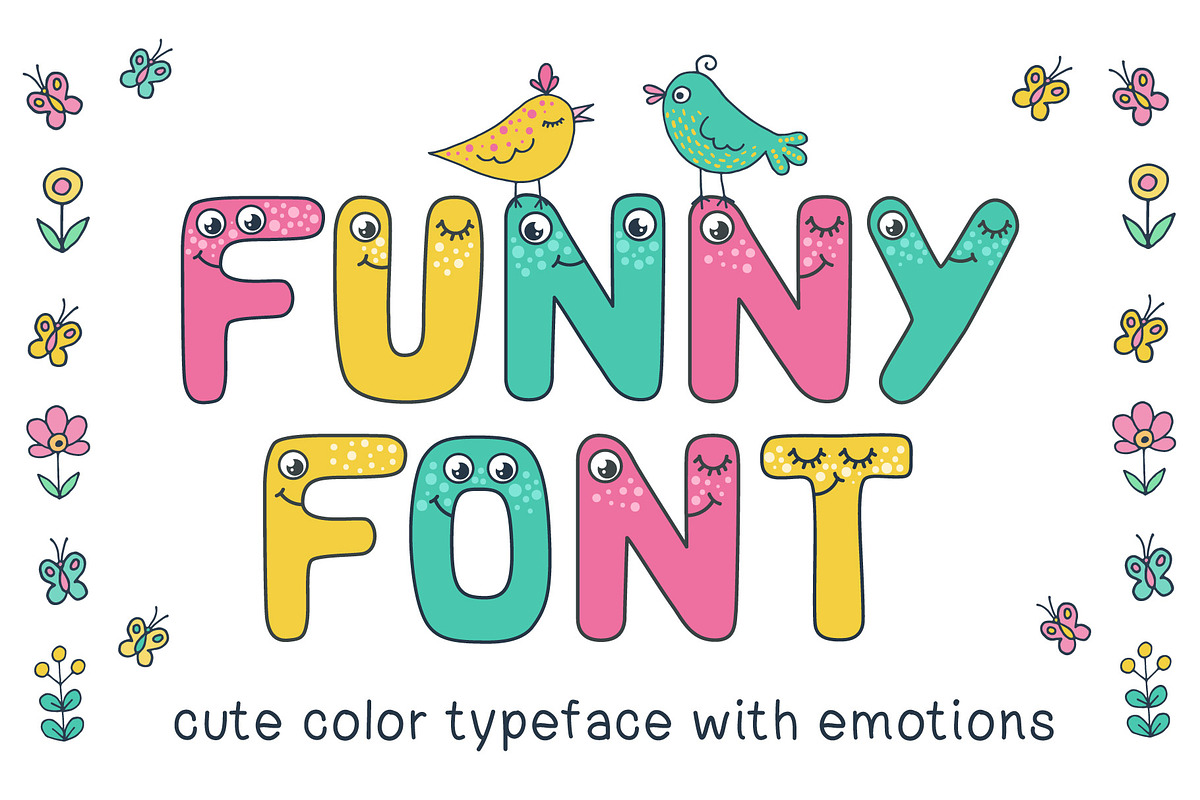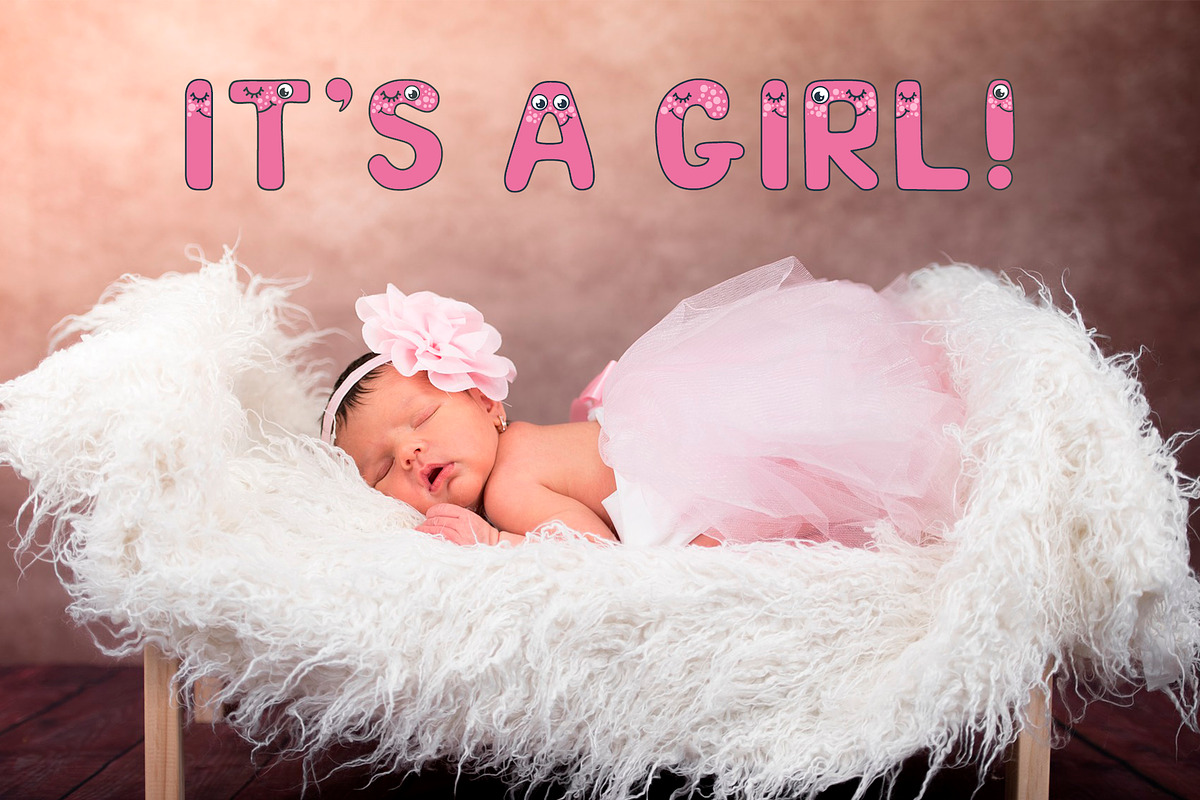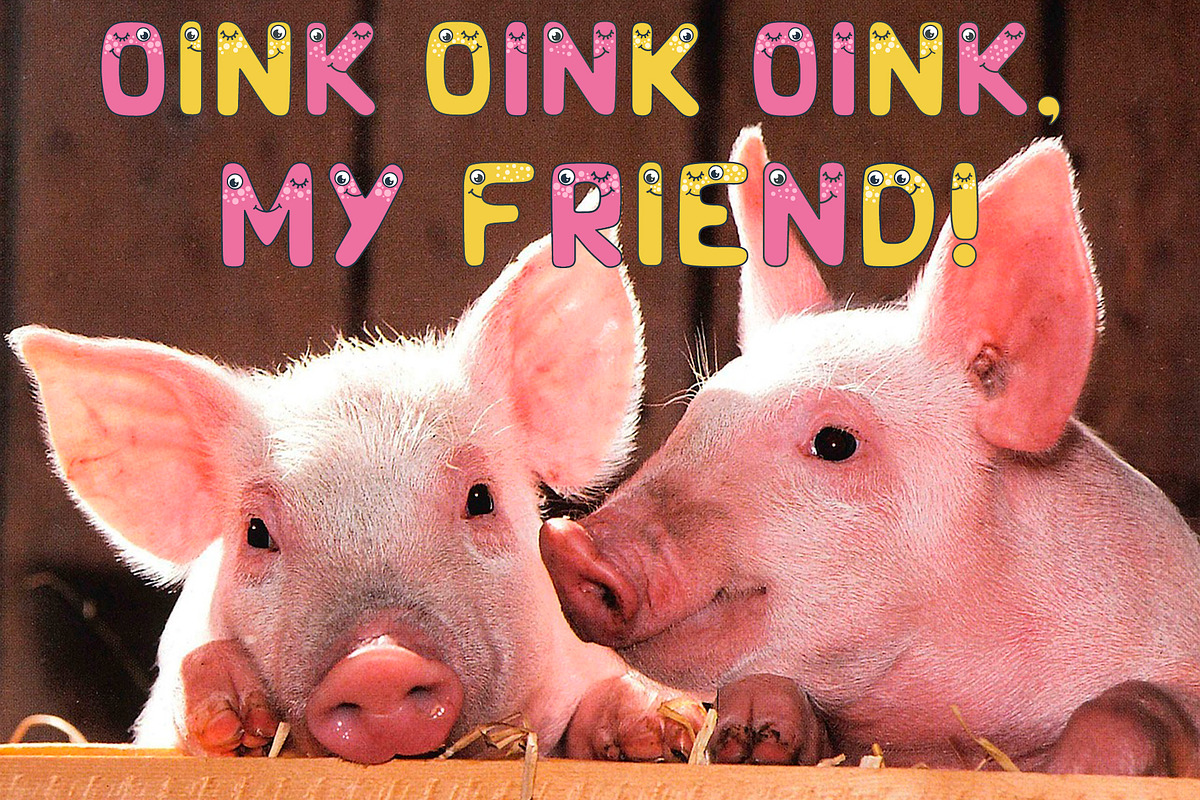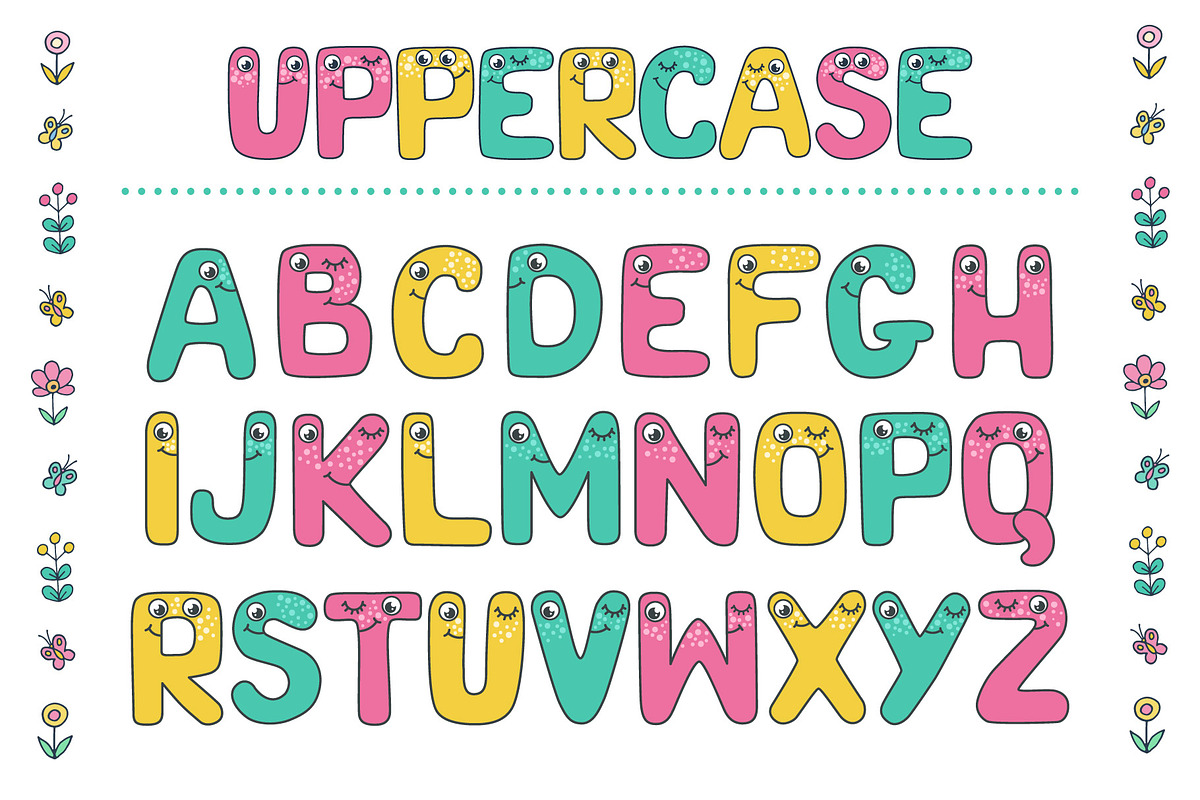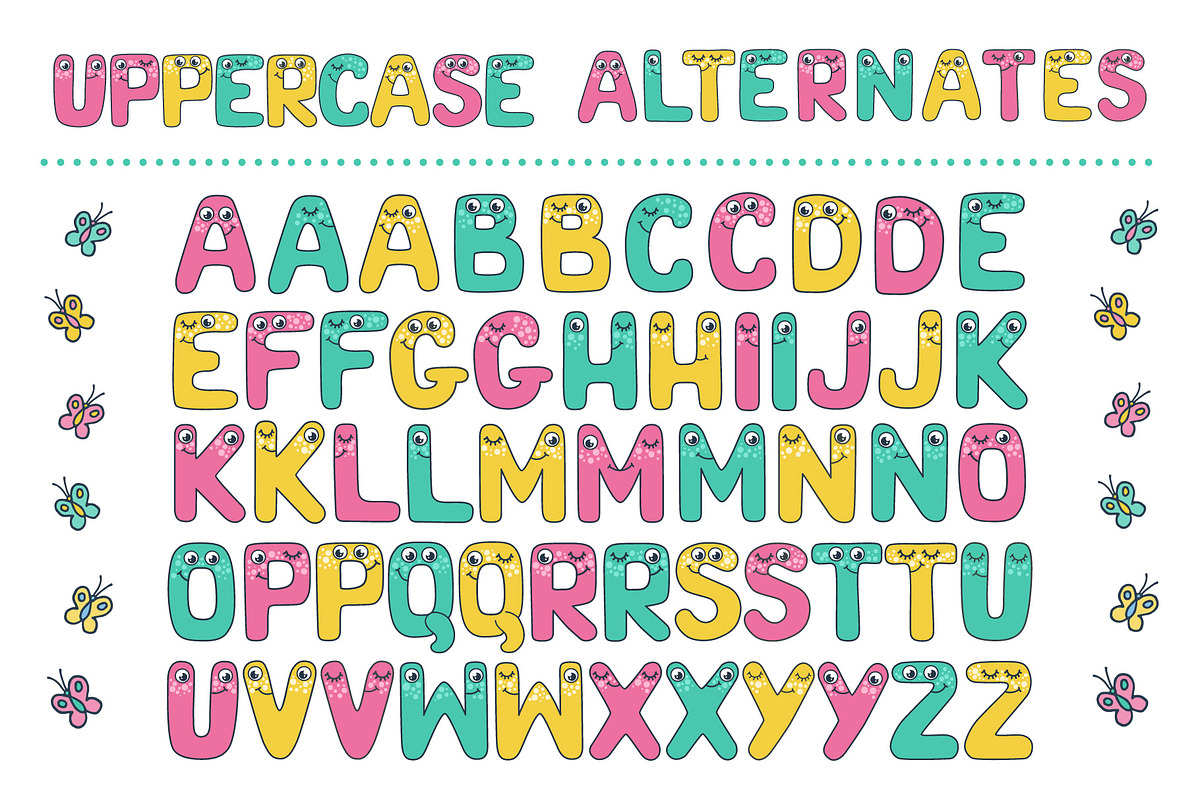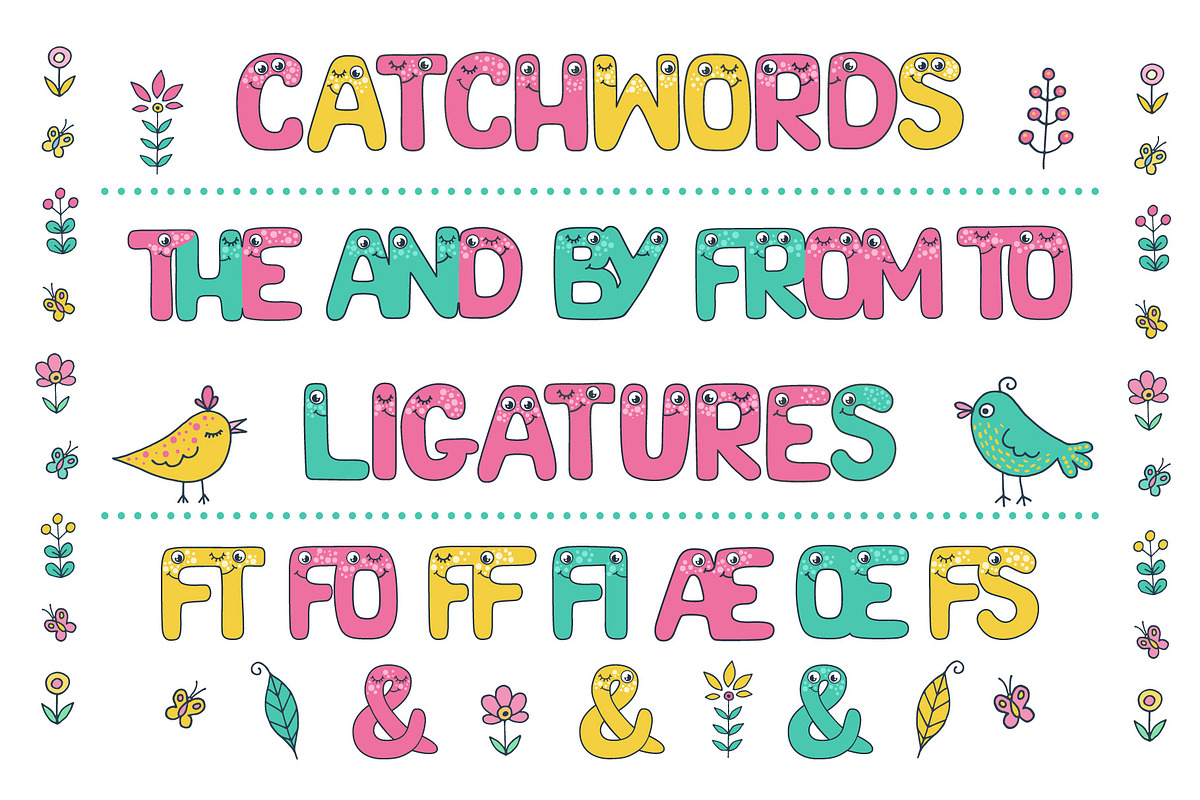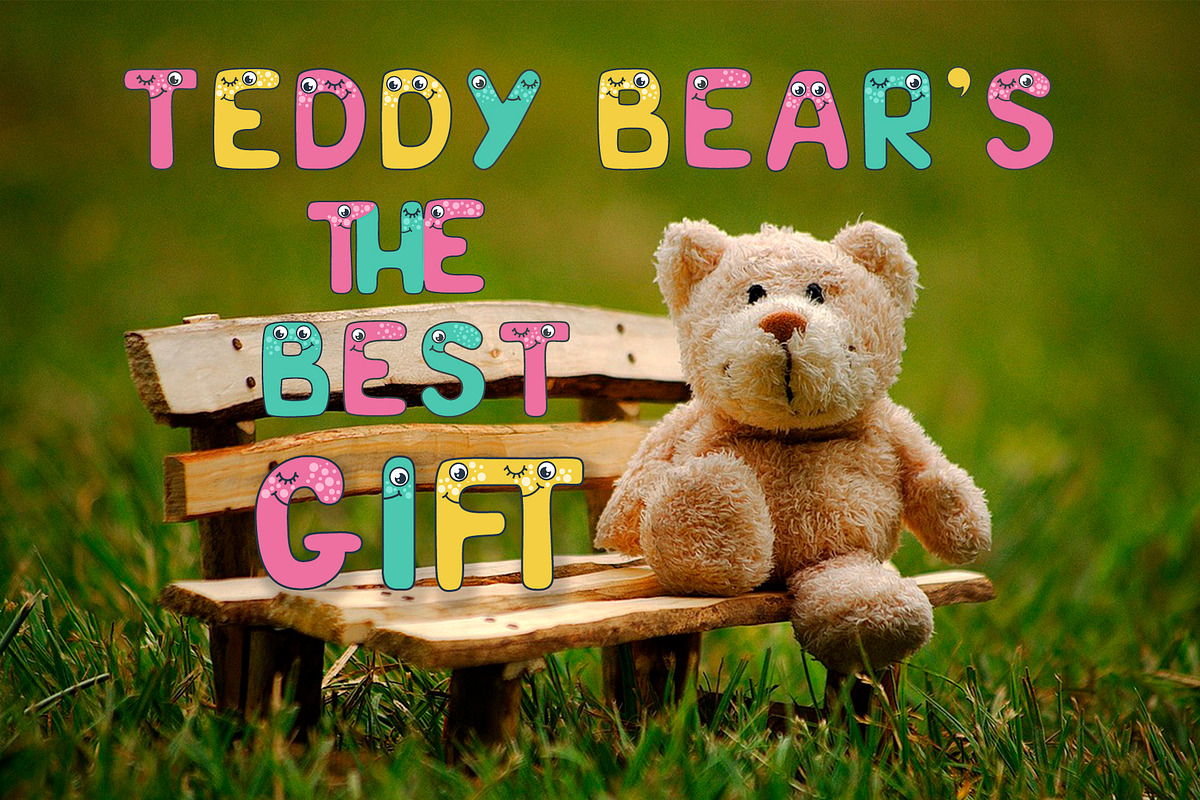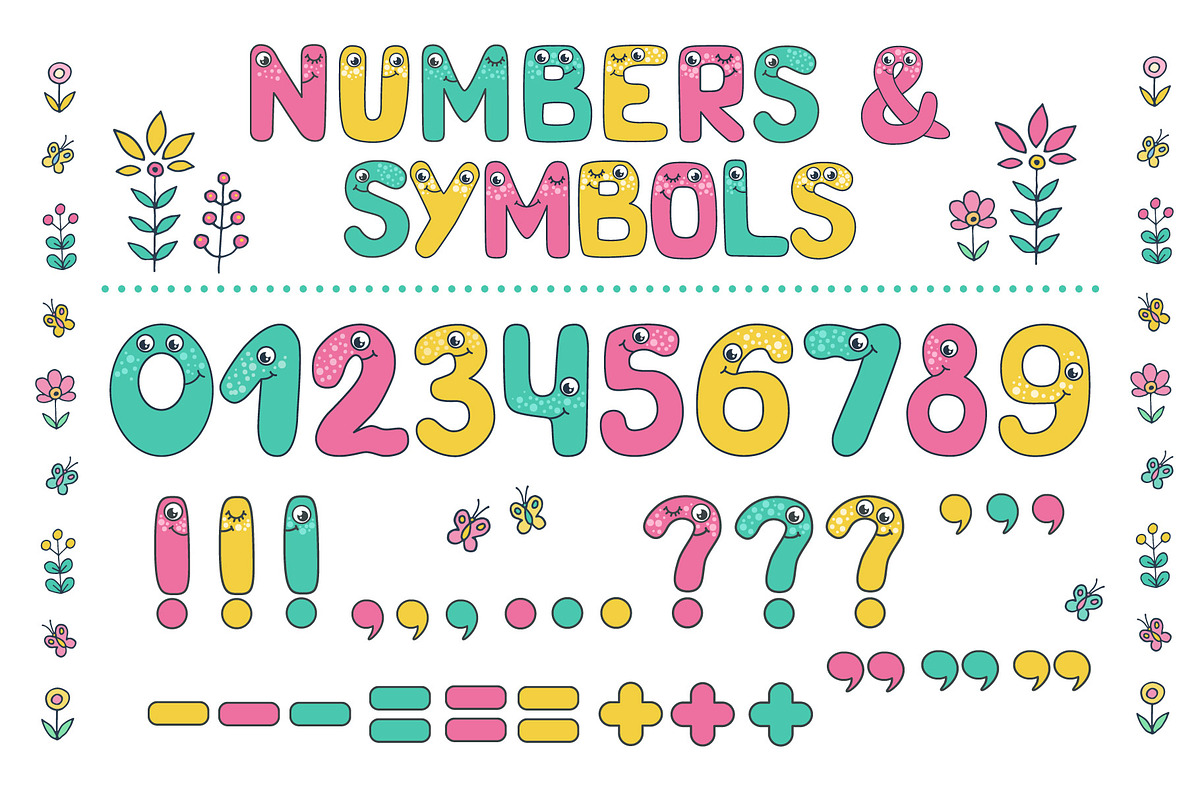
Funny Font
I present you a cheerful and fervent - FUNNY FONT OTF color font
Having eyes letters can smile and wink!)
It is great for fun and bright headlines, postcards, cards, children's holiday design, interior decoration, prints on clothes
Contains only uppercase letters, as well as numeral, symbols, punctuation marks and ligatures.